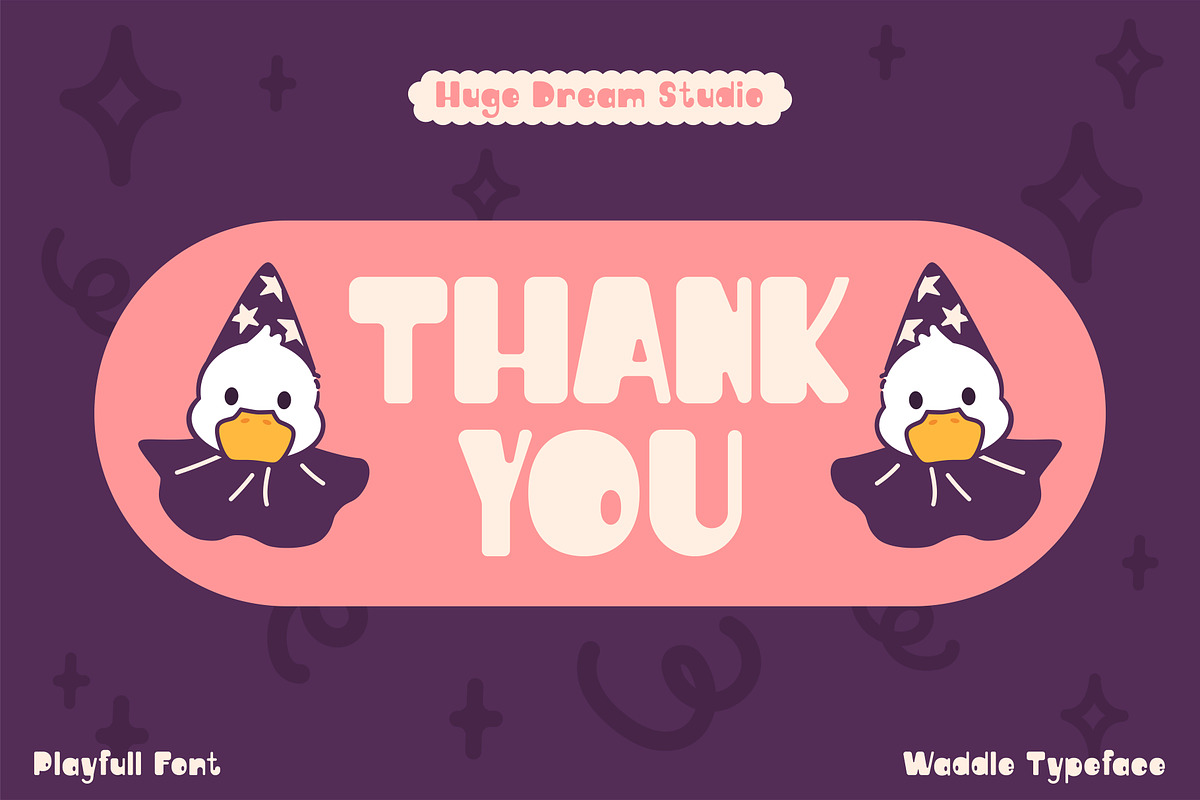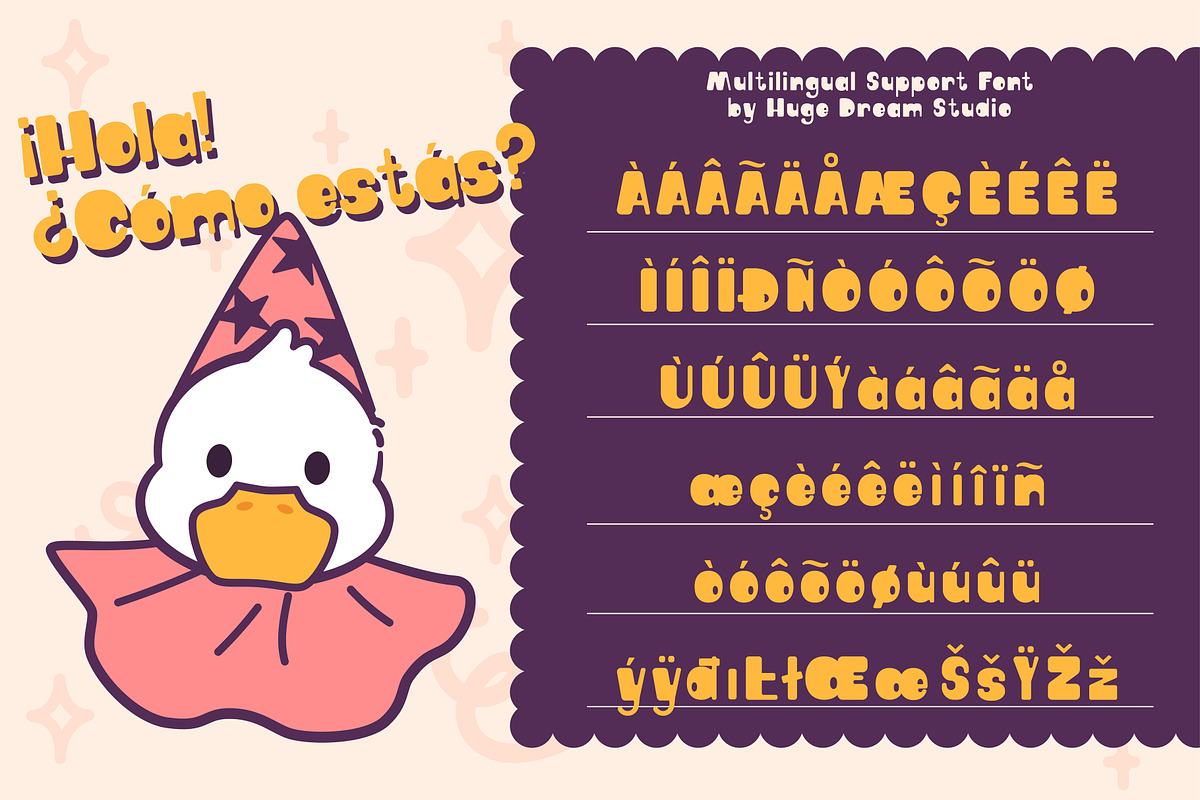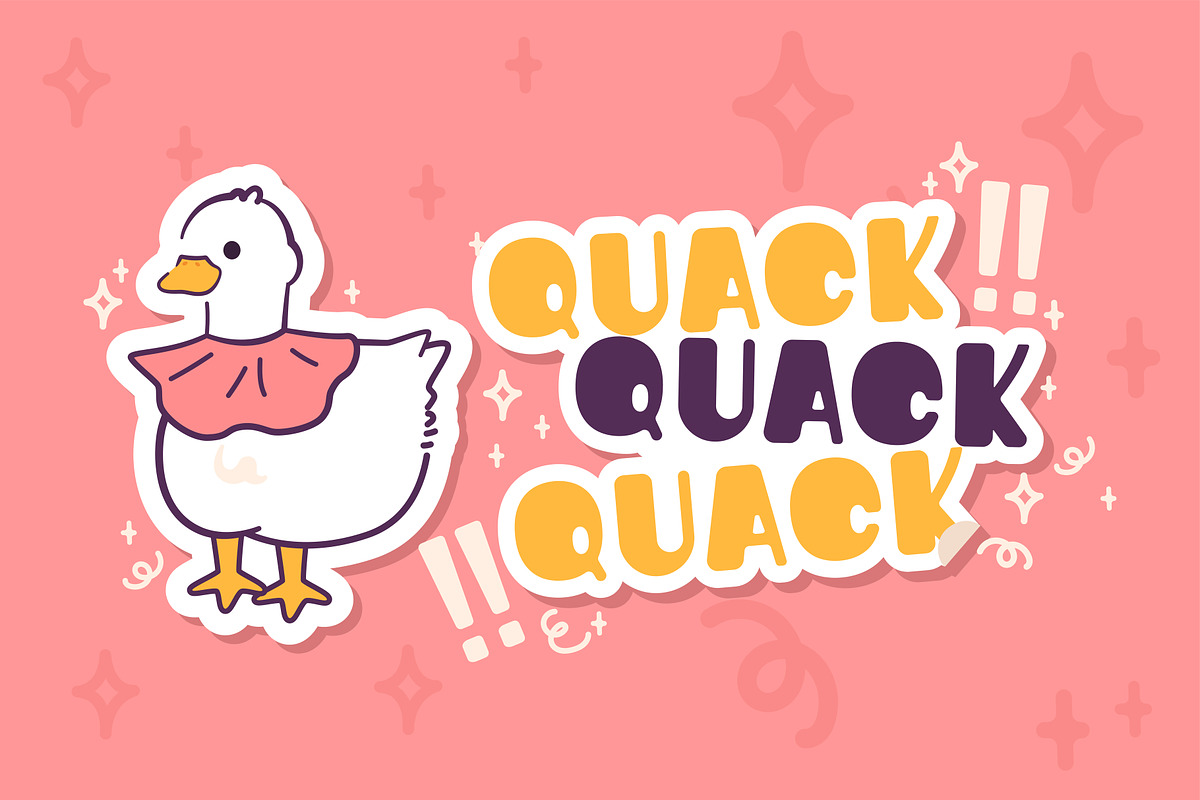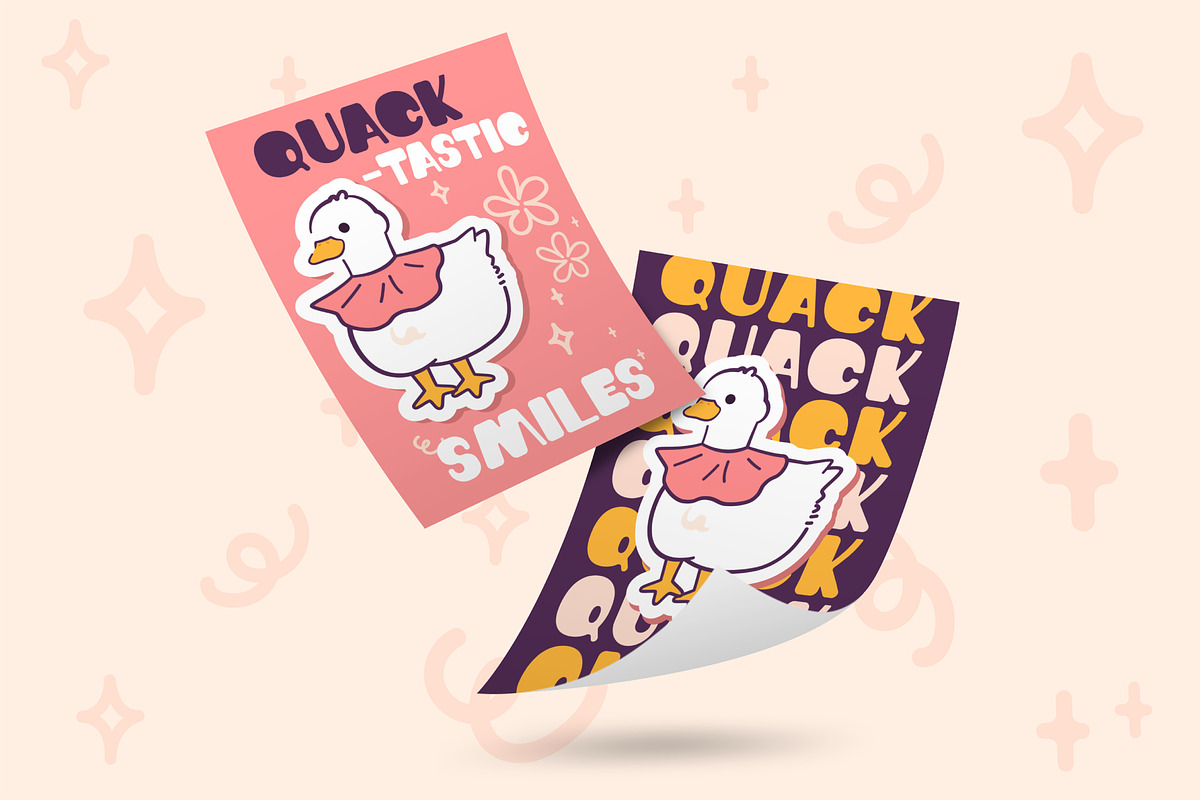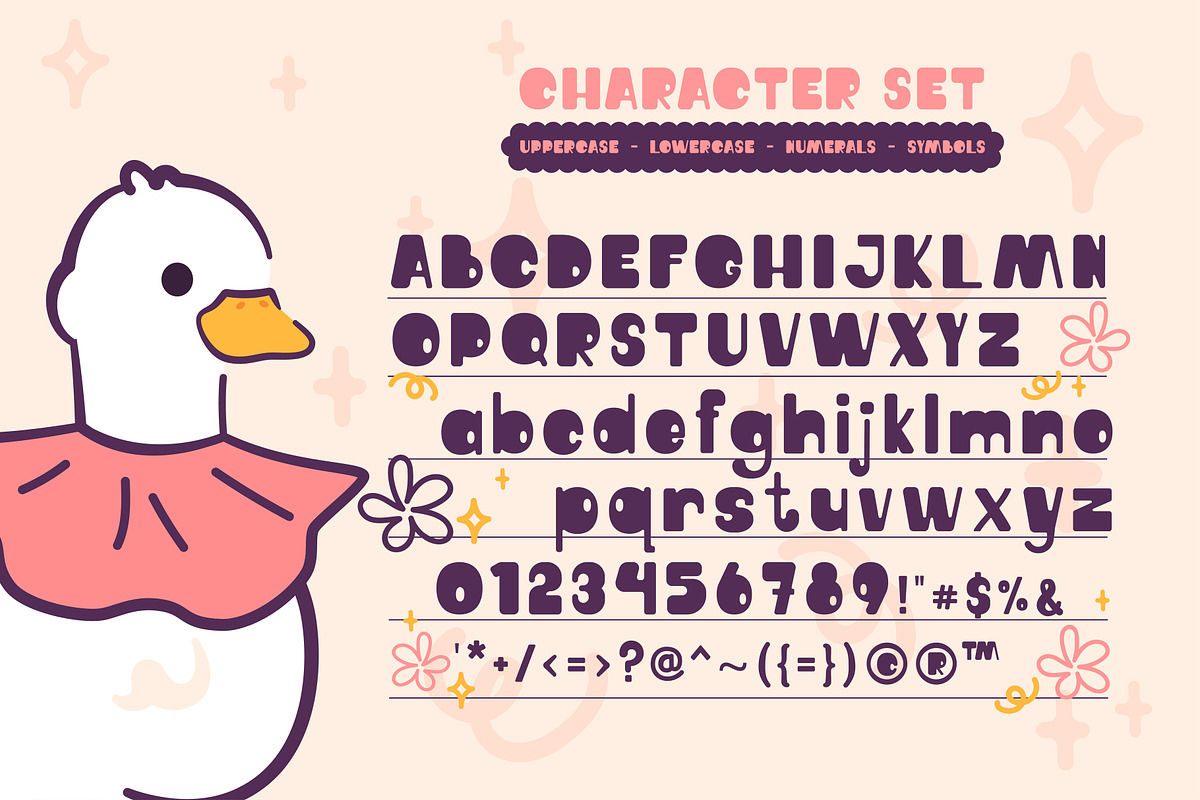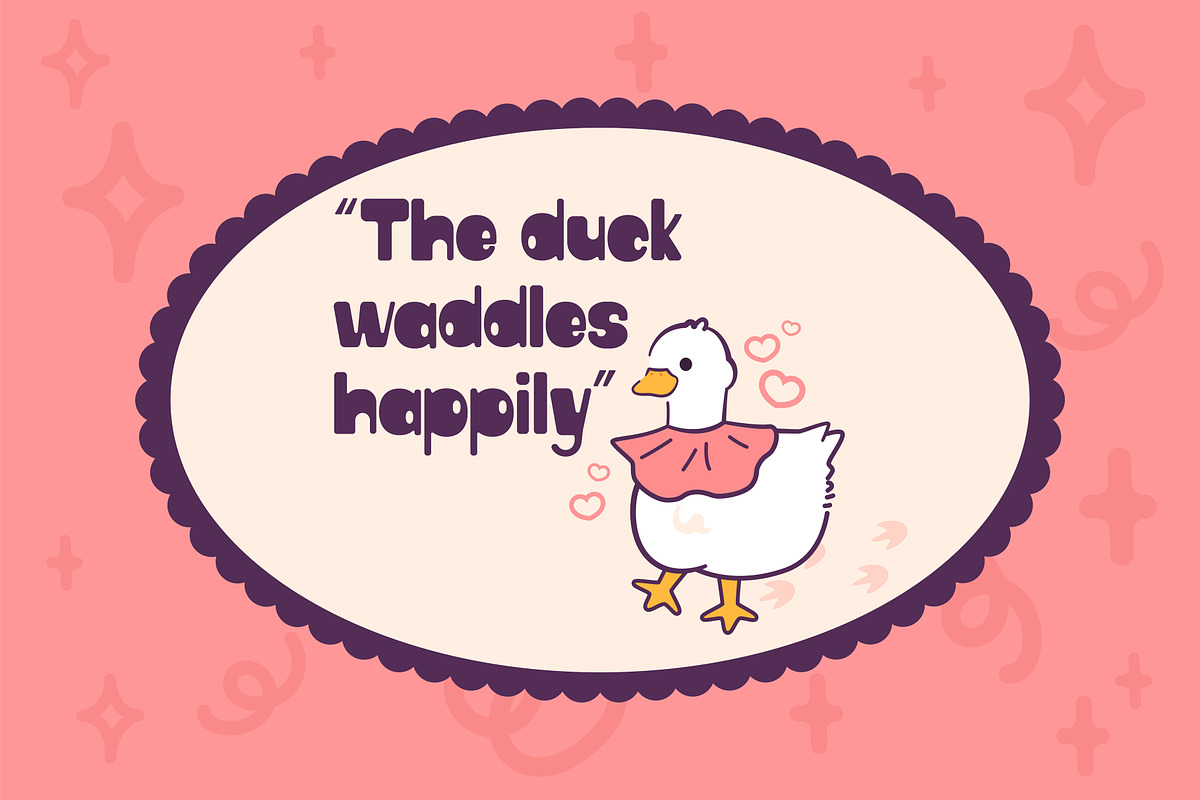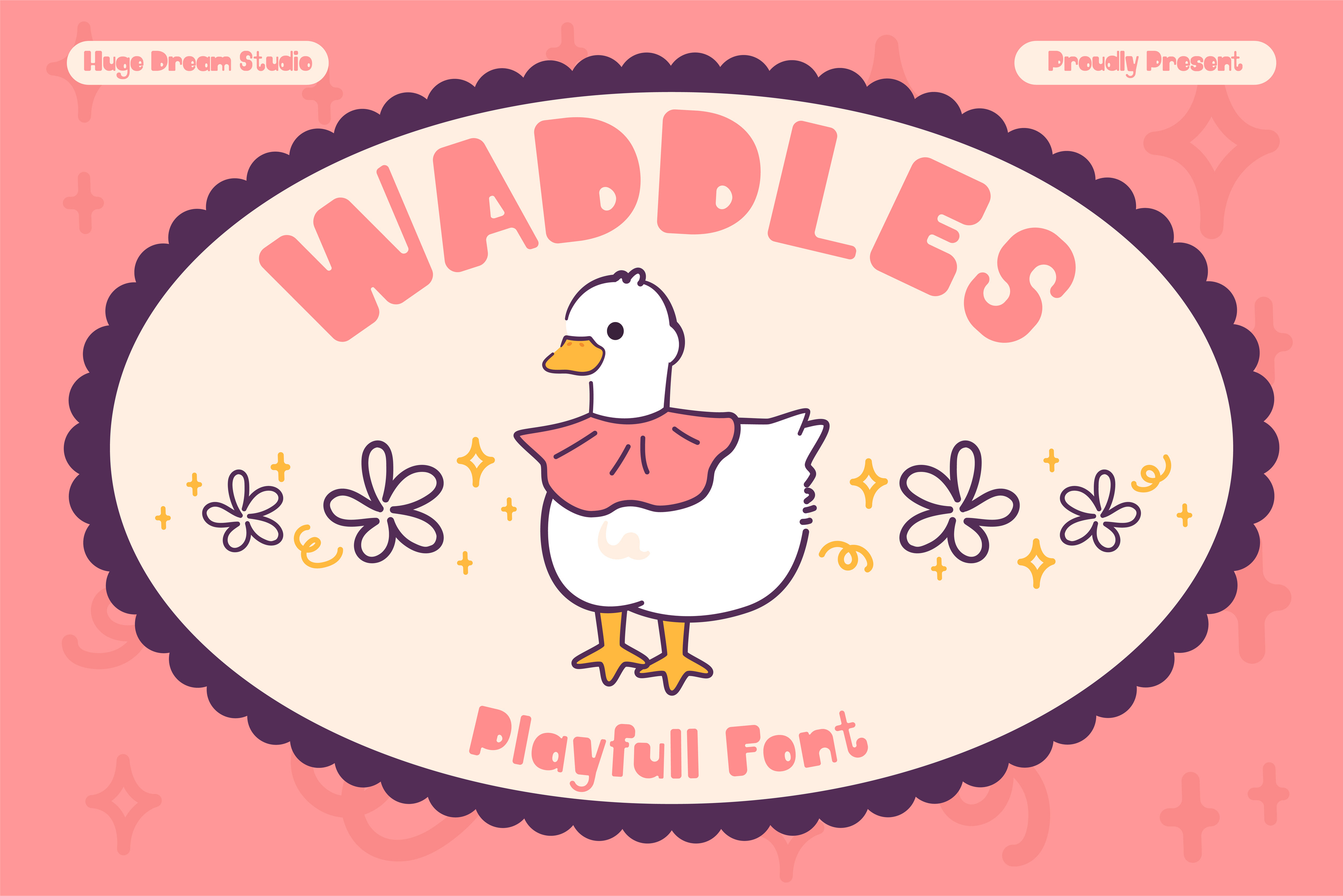
Waddles – Playfull Font
Waddles is a charming and vibrant typeface designed to spark imagination and bring stories to life. Perfect for Children’s Book, it’s whimsical curves and bubbly characters create a sense of fun and adventure on every page. With a playful personality and easy readability, Waddles adds a touch of magic to any creative project, from storybook covers to educational materials. Let Waddles be the voice of your next joyful tale!
Waddles features:
- Character Set (Uppercase & Lowercase)
- Punctuation & Numbers
Elevate and explore the design possibilities with this Children’s Book Design Font!